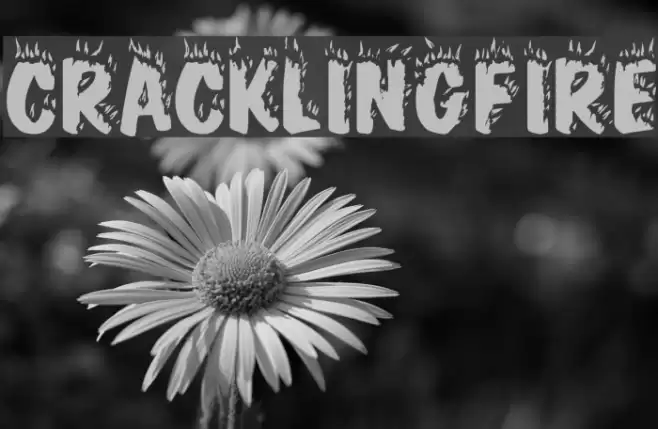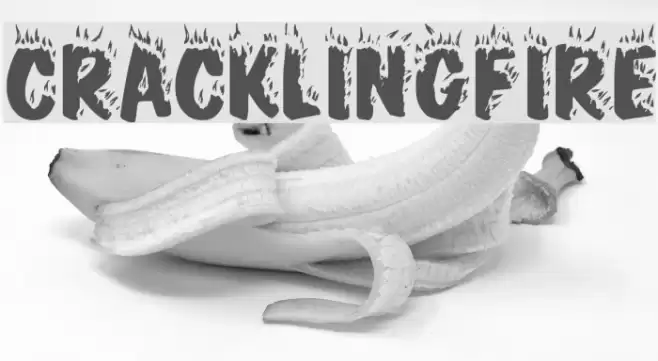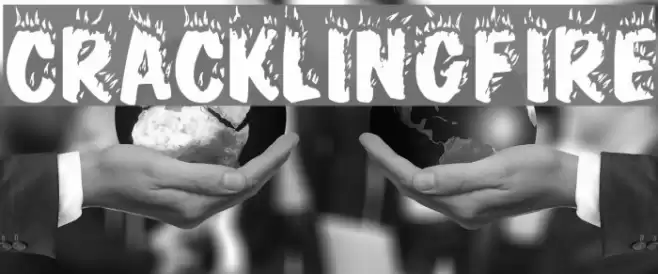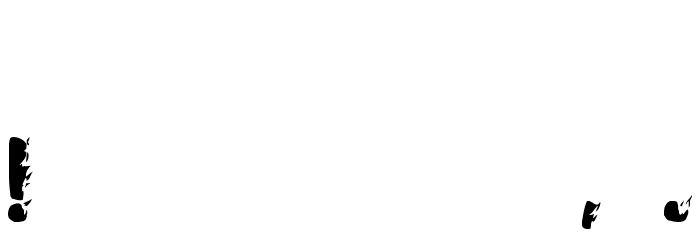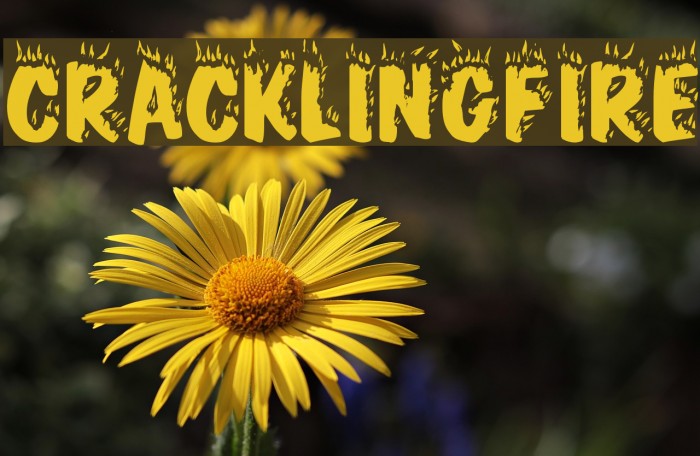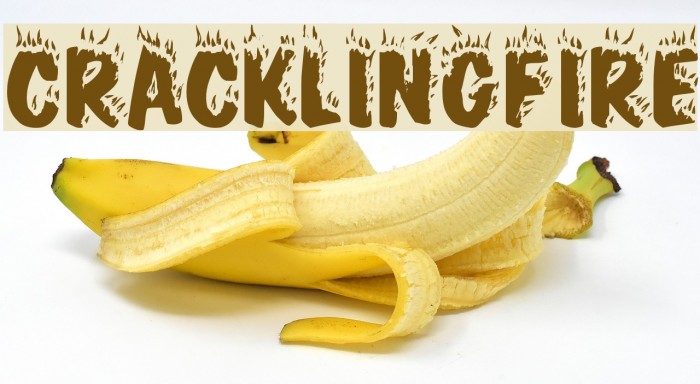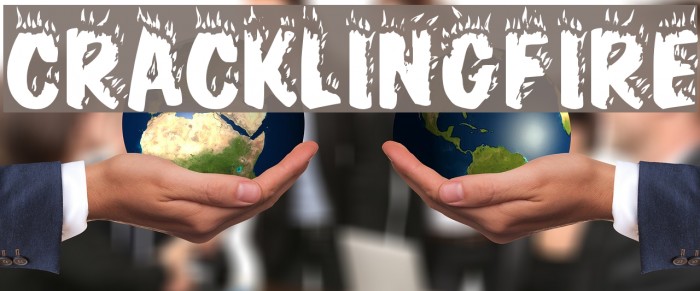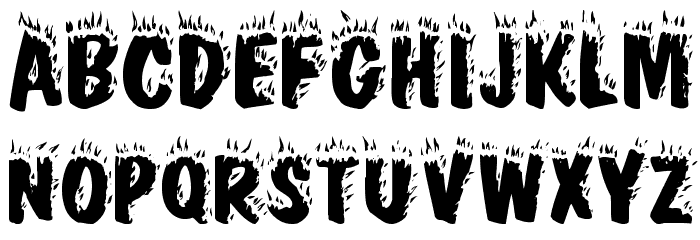
CracklingFire Font
CracklingFire Description
This font features a bold and dynamic design with letters that appear to be engulfed in flames, creating a sense of movement and intensity. The uppercase and lowercase letters maintain a consistent fiery theme, with jagged edges and flame-like extensions that give the impression of crackling fire. The characters are bold and impactful, making them suitable for attention-grabbing designs. The font's unique style is ideal for projects that require a dramatic and energetic look, such as event posters, video game titles, or Halloween-themed graphics.
A bold, fiery font with flame-like extensions for dramatic designs from Script fonts.
- Proposed Projects: Ideal for event posters, video game titles, Halloween graphics, and any project needing a fiery, dramatic touch.